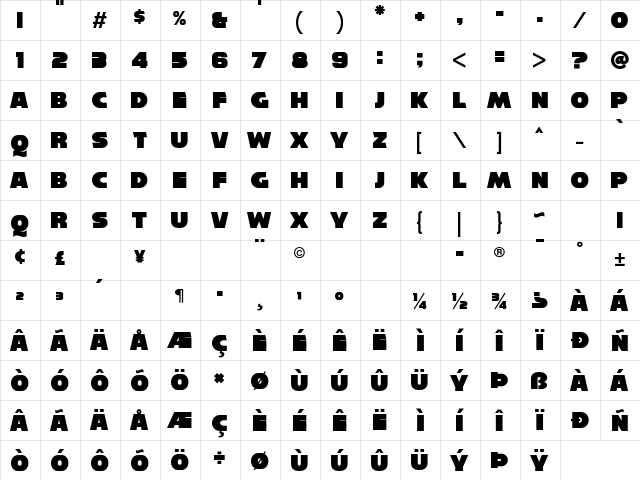
Reisenberg Regular
Design Context for Reisenberg Typeface
Reisenberg is a composed and adaptable typeface that performs quietly and consistently across a wide range of design contexts.
Pro Tip: Use Reisenberg in both headline and body roles to test its range before committing to a single application.